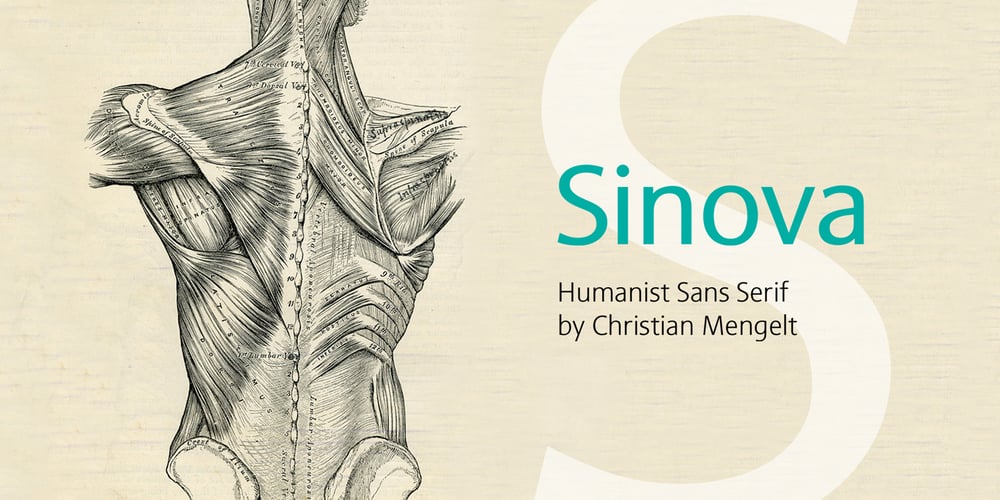
Sinova Font Family was designed by Christian Mengelt and published by Linotype. Sinova contains 10 styles and family package options. The simplified letterforms of Sinova™ make it an ideal choice for those settings where you really don’t want the type to shout too loudly or draw unnecessary attention to itself. Christian Mengelt has drawn five weights: Thin, Light, Regular, Medium, and Bold, all with complimentary obliques. Sinova is an OpenType family that is unfussy, functional, and legible, with extensive language support (some 48 languages). Thanks to its clear and straightforward design and dynamic rhythm, one of the main characteristics of Sinova is its excellent legibility, irrespective of whether it is used in longer passages as a stylish book script or for text in the digitalised office environment. But Sinova also happily adapts itself to being used as a titling font in combination with Renaissance Antique serif typefaces. For this reason, another potential application for the font family is as a graceful and elegant titling and text script for job printing and in publicity texts. The two complementary stroke widths, light and bold, are perfect for commercial applications.